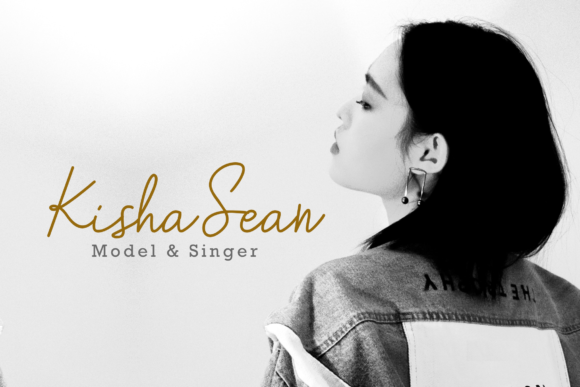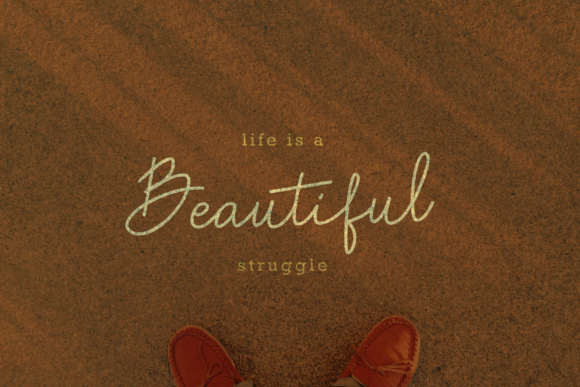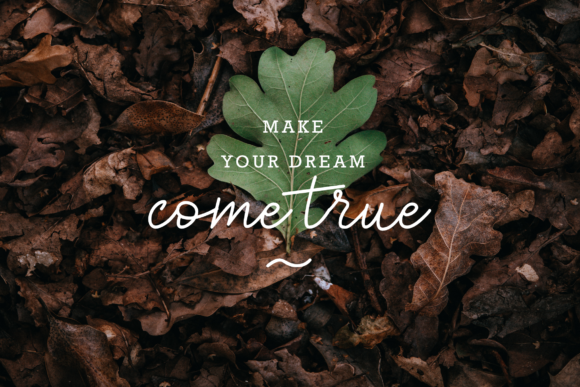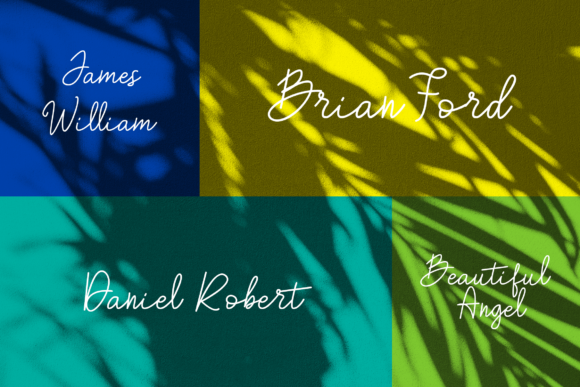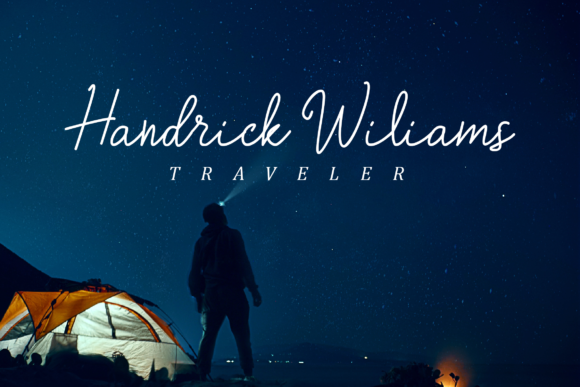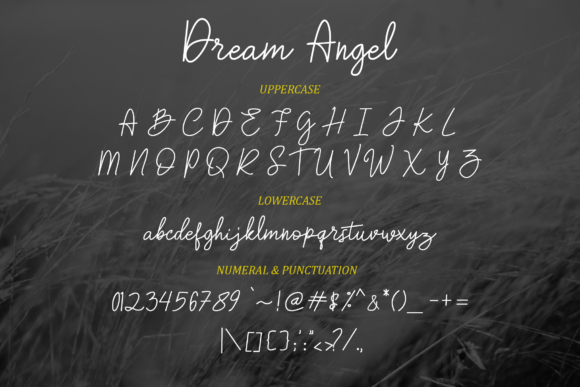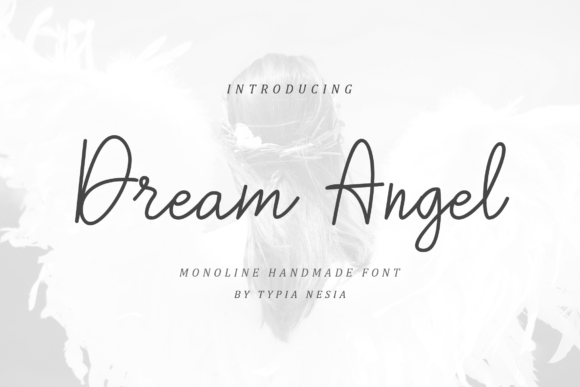
Dream Angel Font: The Ultimate Romantic Handwritten Script Font for Designers and Crafters
Are you a designer or crafter looking for a font that exudes romance and elegance? Look no further than the Dream Angel Font! This beautiful handwritten script font is perfect for a variety of design needs, from wedding invitations and stationery to branding and packaging. In this article, we’ll dive into the features and benefits of the Dream Angel Font, and explore how you can use it to add a touch of romance to your designs.
What is Dream Angel Font?
Dream Angel Font is a romantic handwritten script font that is designed to capture the essence of elegance and sophistication. Its flowing lines and delicate curves make it perfect for designs that require a touch of whimsy and romance. Whether you’re creating a wedding invitation, a logo, or a social media graphic, Dream Angel Font is sure to impress.
Features of Dream Angel Font
Dream Angel Font comes with a range of features that make it a versatile and practical choice for designers and crafters. Some of its key features include:
- Handwritten script style: Dream Angel Font has a beautiful handwritten script style that is perfect for creating romantic and elegant designs.
- Flowing lines and delicate curves: The font’s flowing lines and delicate curves give it a whimsical and feminine touch.
- Easy to read: Despite its ornate style, Dream Angel Font is easy to read and understand, making it perfect for use in a variety of designs.
- Multilingual support: Dream Angel Font supports multiple languages, making it a great choice for designers and crafters who work with international clients.
Benefits of Using Dream Angel Font
So why should you choose Dream Angel Font for your designs? Here are just a few benefits of using this beautiful font:
- Adds a touch of romance: Dream Angel Font is perfect for designs that require a touch of romance and elegance, such as wedding invitations and stationery.
- Versatile: Dream Angel Font can be used in a variety of designs, from logos and branding to social media graphics and packaging.
- Unique and distinctive: Dream Angel Font has a unique and distinctive style that will set your designs apart from the competition.
How to Use Dream Angel Font
Using Dream Angel Font is easy! Here are a few tips for getting started:
- Pair it with a sans-serif font: Pair Dream Angel Font with a sans-serif font for a beautiful contrast that will make your designs stand out.
- Use it for headings and titles: Dream Angel Font is perfect for use in headings and titles, where its elegant style can really shine.
- Experiment with colors and textures: Dream Angel Font looks great in a variety of colors and textures, so don’t be afraid to experiment and find the perfect look for your design.
Dream Angel Font is a versatile font that can be used in a wide range of designs. Here are a few ideas to get you started:
- Wedding invitations and stationery: Dream Angel Font is perfect for wedding invitations, stationery, and other wedding-related designs.
- Branding and packaging: Use Dream Angel Font to add a touch of elegance and sophistication to your branding and packaging designs.
- Social media graphics: Dream Angel Font is a great choice for social media graphics, where its elegant style can help you stand out from the competition.
In conclusion, Dream Angel Font is a beautiful and versatile font that is perfect for designers and crafters who want to add a touch of romance and elegance to their designs. With its flowing lines, delicate curves, and easy-to-read style, Dream Angel Font is sure to inspire your next design project. So why wait? Get inspired by its romantic appearance and start creating with Dream Angel Font today!